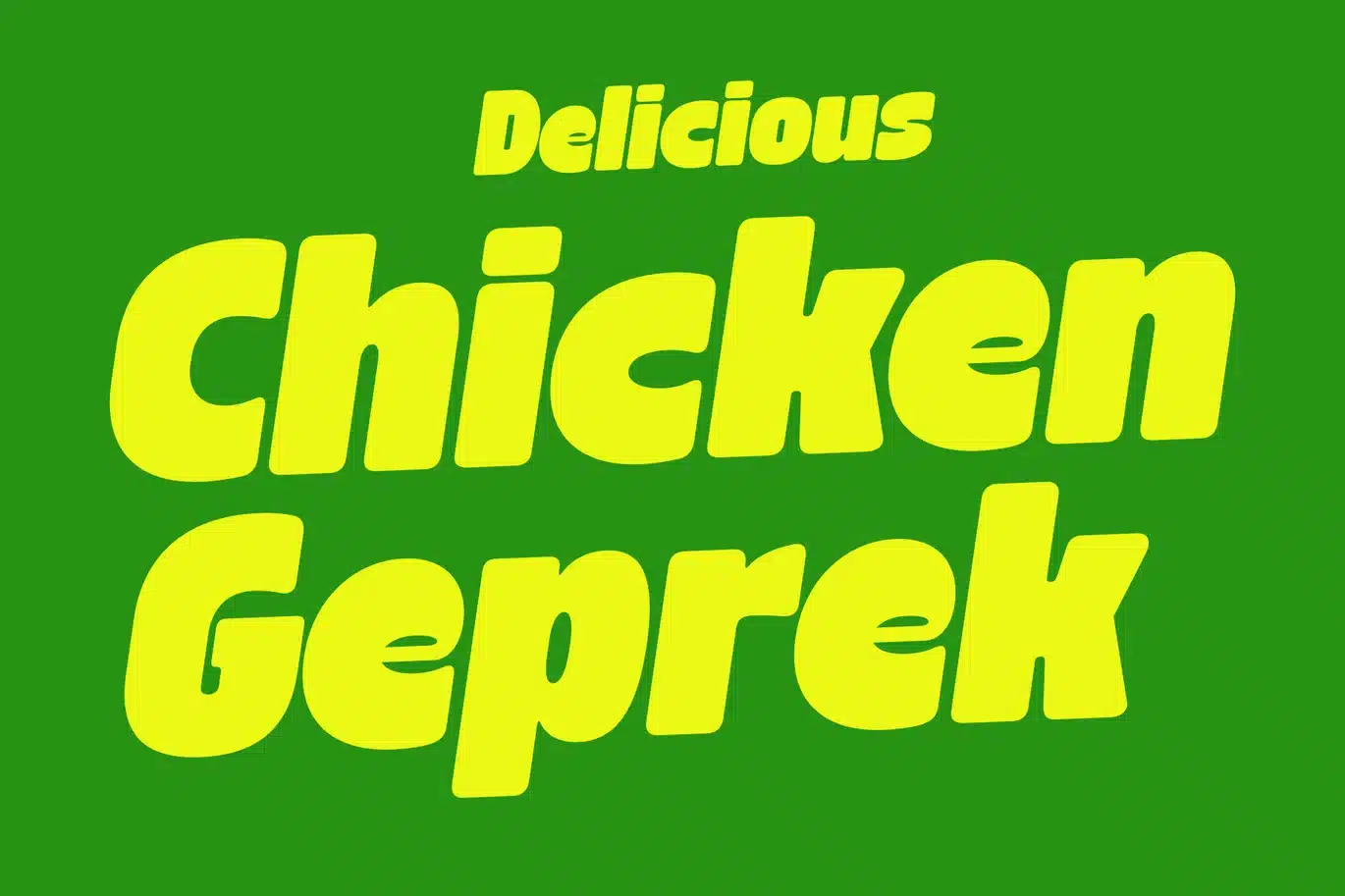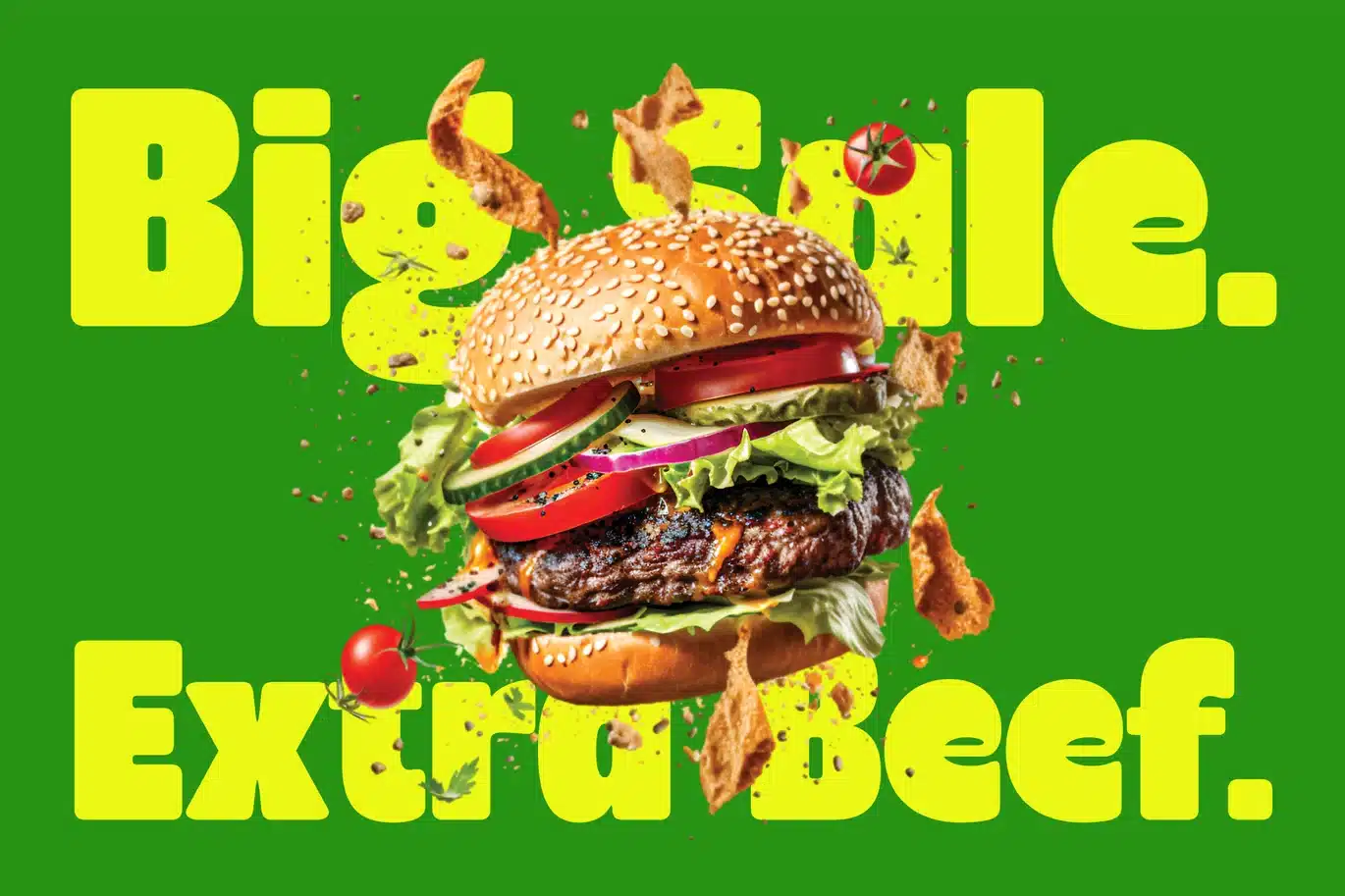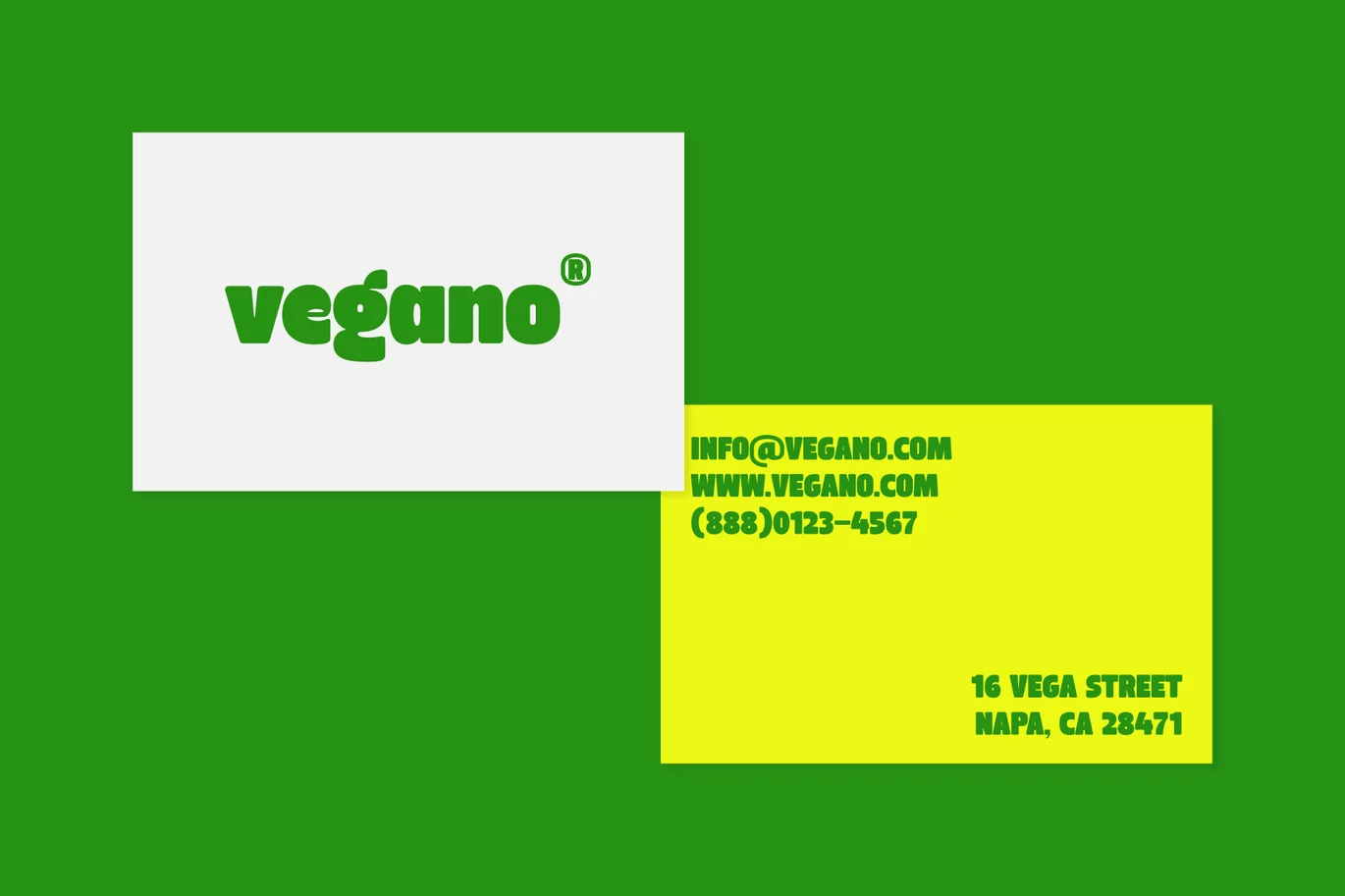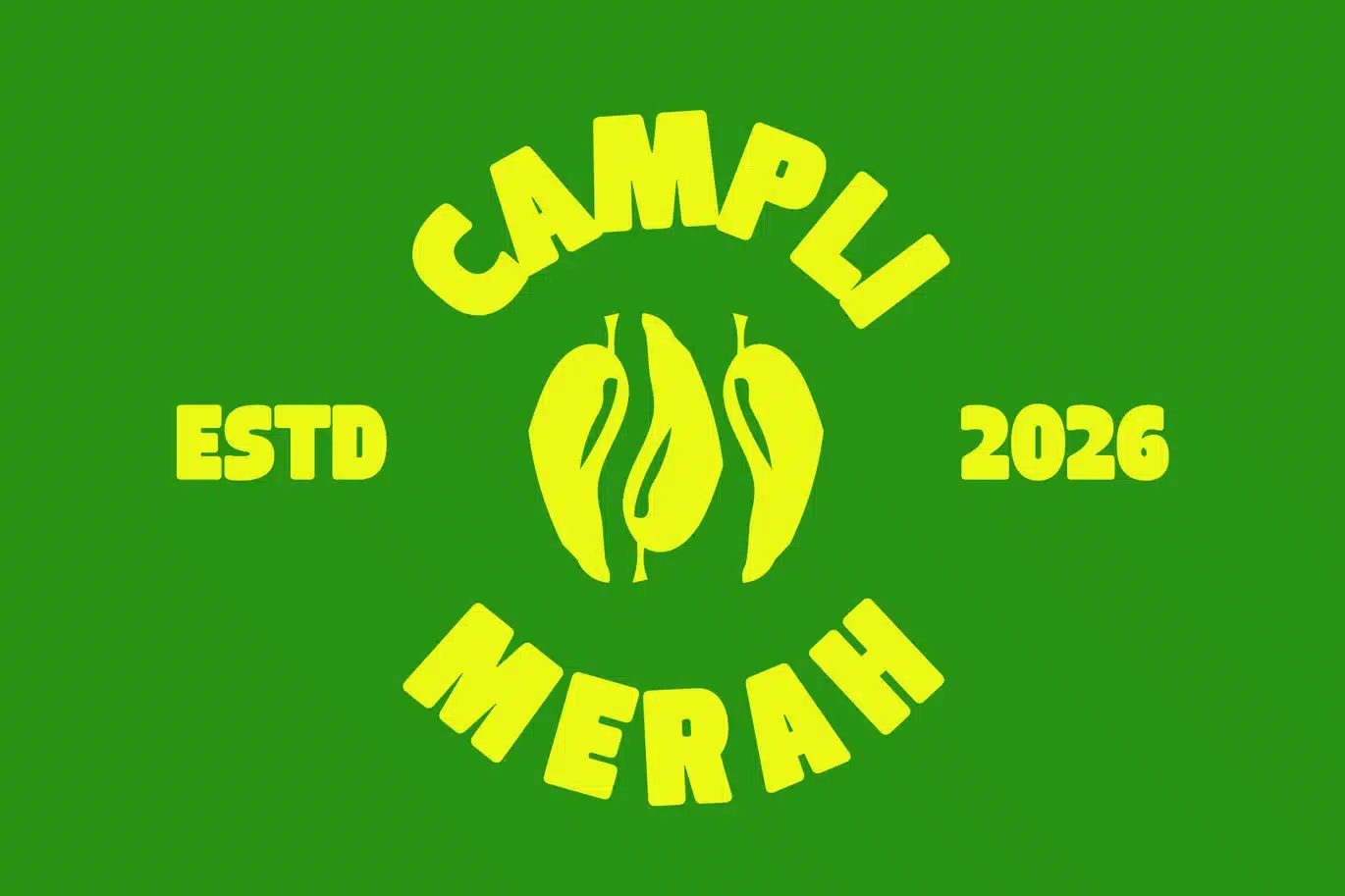
Vegano – Food Font
Vegano is a bold and vibrant display font designed to bring freshness and flavor into your typography. With its chunky shapes, smooth curves, and playful character style, Vegano creates a strong visual presence that feels modern, friendly, and appetizing.
Perfect For:
- Food & Beverage Branding
- Restaurant & Café Menus
- Packaging Design
- Social Media Content
- Posters & Headlines
- Logo Design
- Organic & Healthy Branding
- Street Food & Fast Food Projects